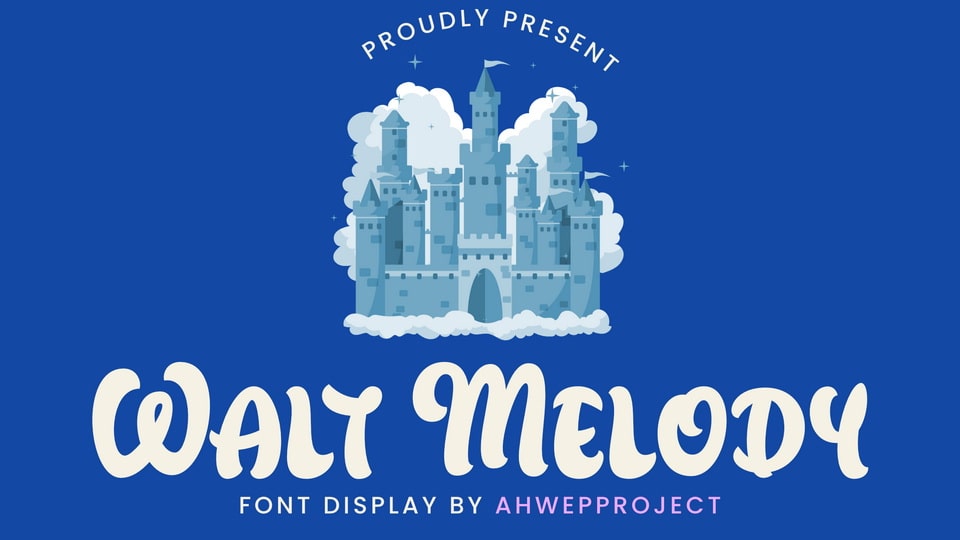
Download Walt Melody font, a display typeface with a unique style. This font is inspired by the Walt Disney font. So the design can be more attractive.